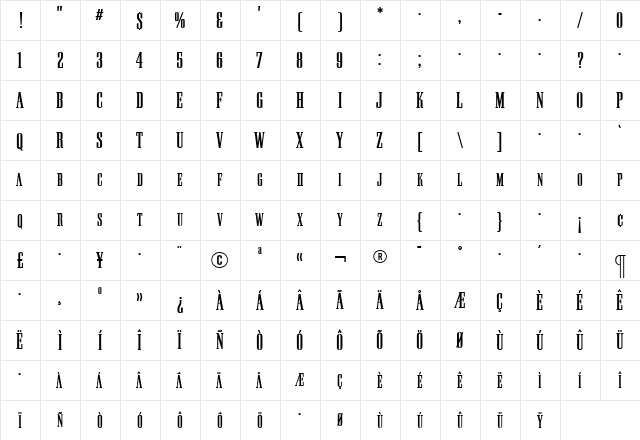
PallMallBoldTitling Roman
Design Context for PallMallBoldTitling Typeface
PallMallBoldTitling is a composed and adaptable typeface that performs quietly and consistently across a wide range of design contexts. Its bold stroke weight gives it real presence on the page.